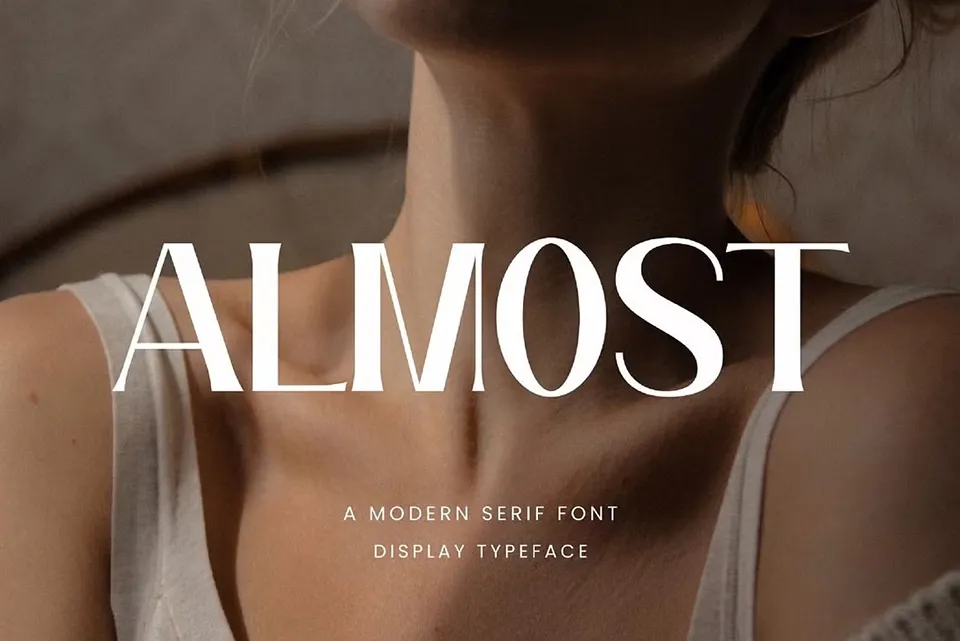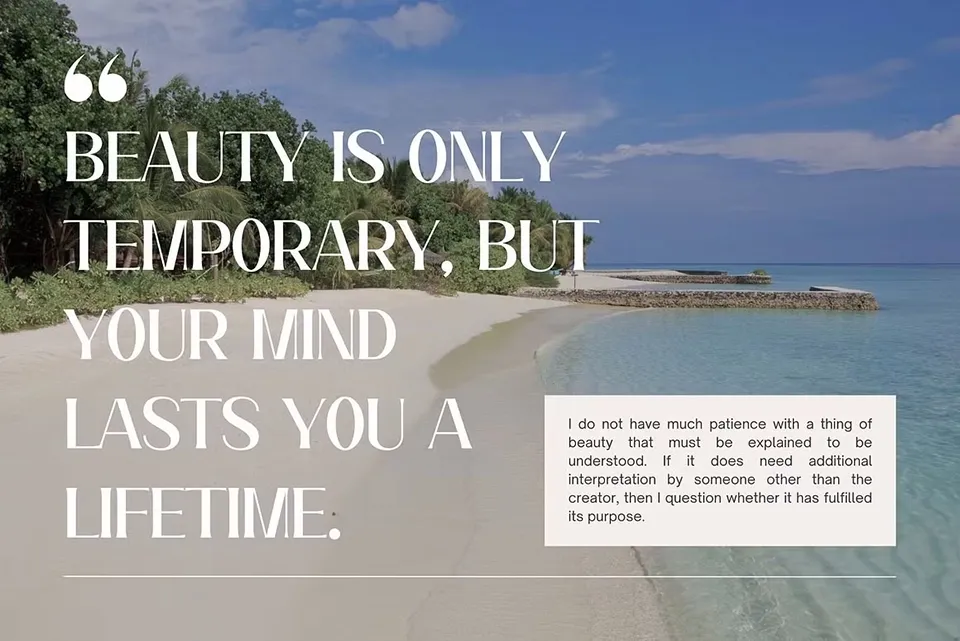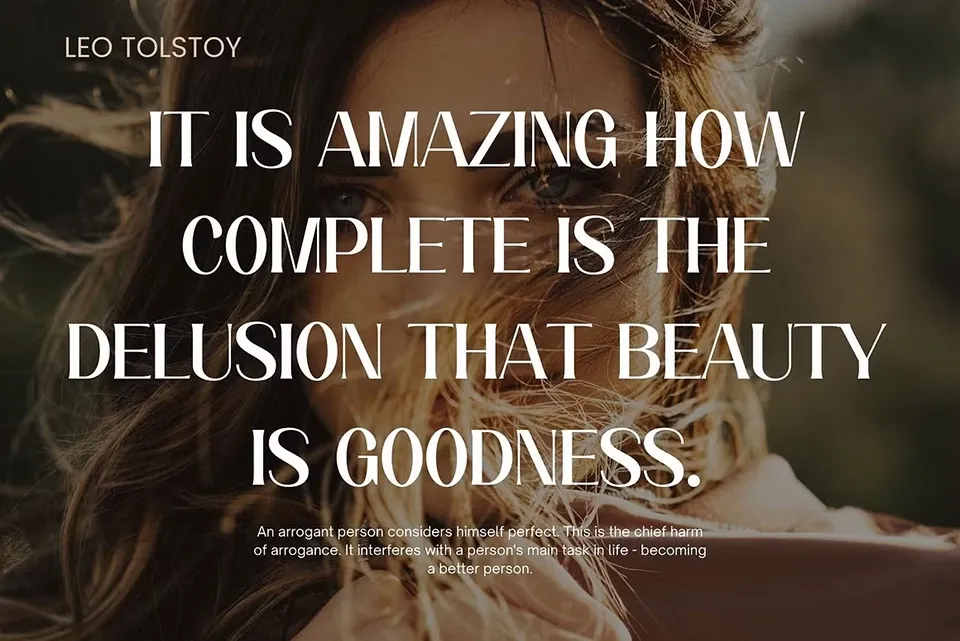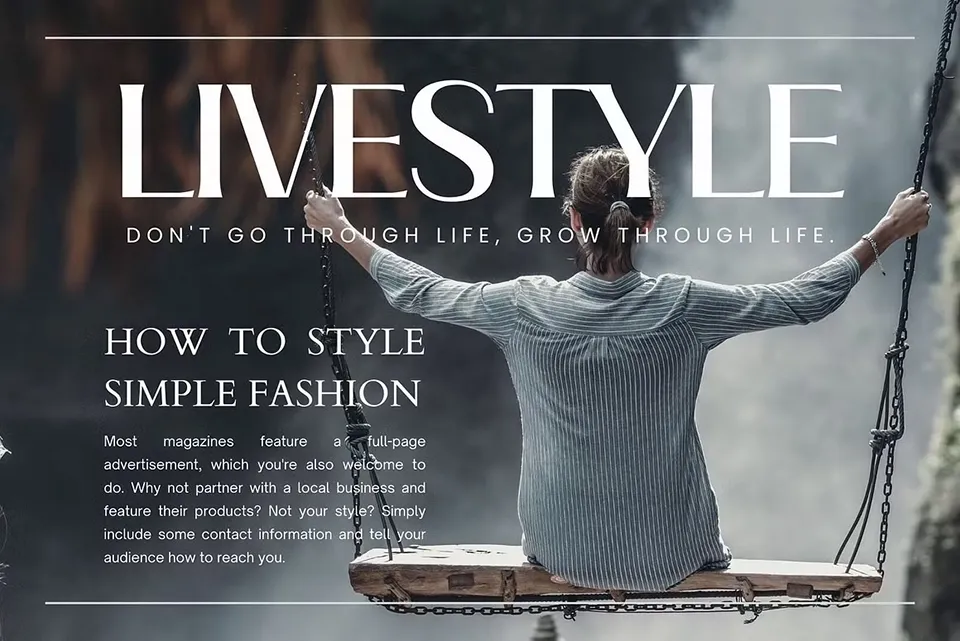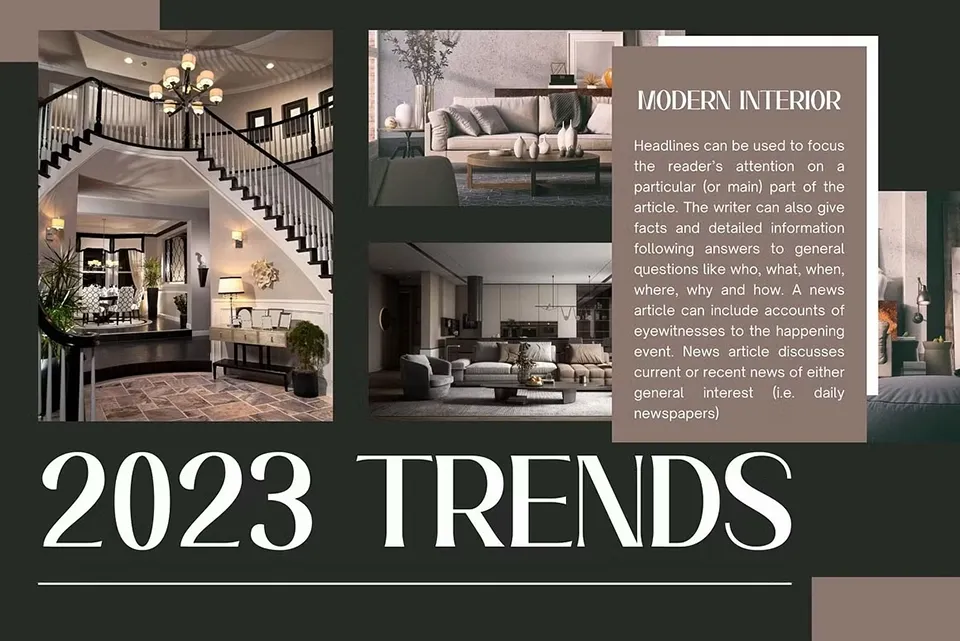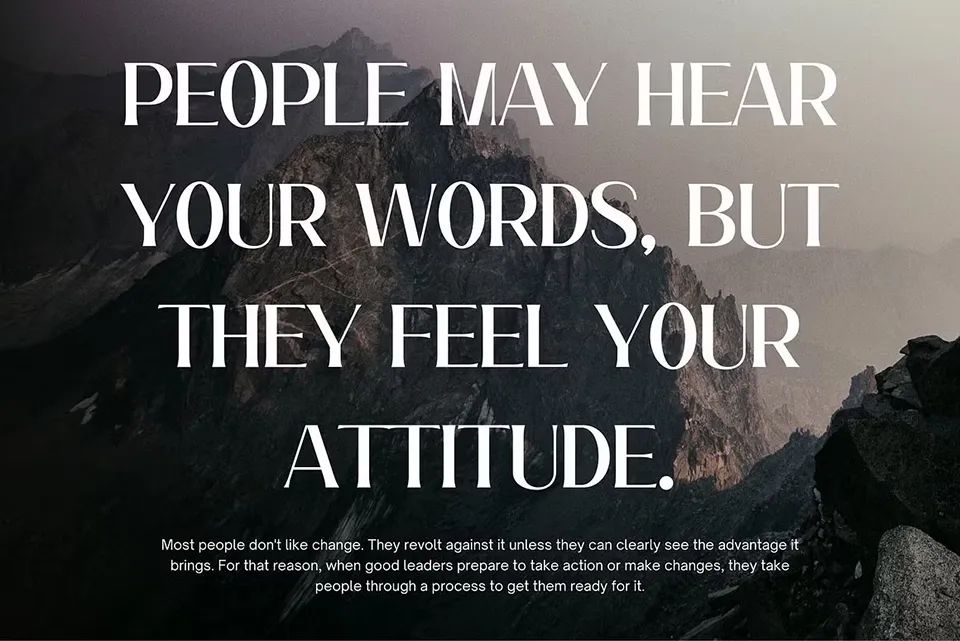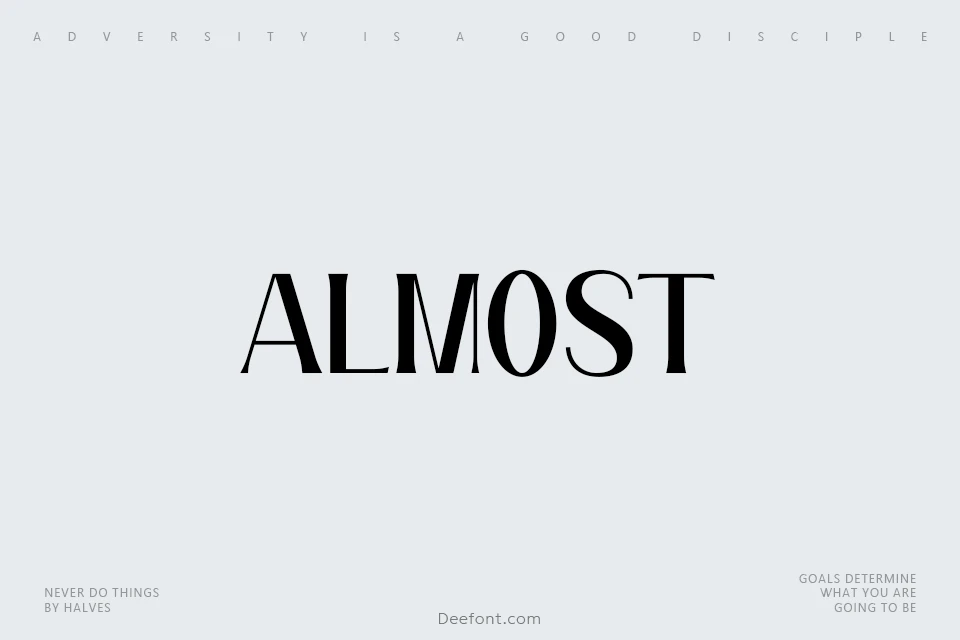
Almost Font
Almost Font is a modern serif typeface that combines elegance with a contemporary edge. With its refined letterforms and subtle details, Almost Font is perfect for creating sophisticated designs that demand attention. Its clean, sharp serifs and balanced proportions make it ideal for branding, editorial layouts, logos, and high-end packaging. This display typeface exudes a timeless charm while maintaining a fresh and stylish appeal, making it versatile for both classic and modern projects. Whether used in bold headlines or delicate accents, Almost Font adds a touch of luxury and professionalism to any creative endeavor. Elevate your designs with Almost Font!